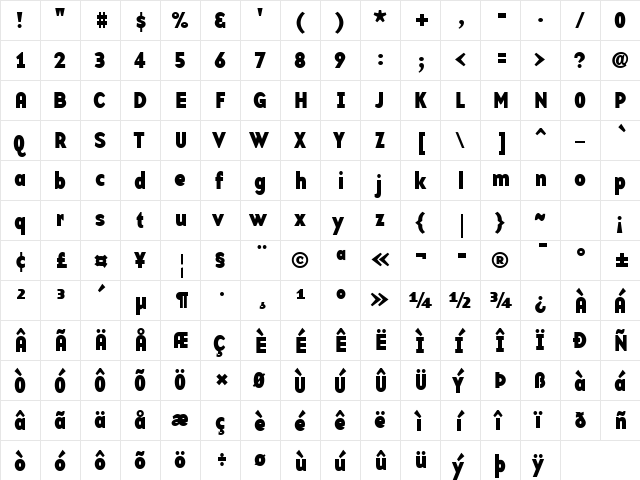
BaseTwelveSansB Regular
Design Context for BaseTwelveSansB Typeface
BaseTwelveSansB is a composed and adaptable typeface that performs quietly and consistently across a wide range of design contexts.
Pro Tip: Pair BaseTwelveSansB with a font of contrasting weight or personality to build a more expressive typographic hierarchy.